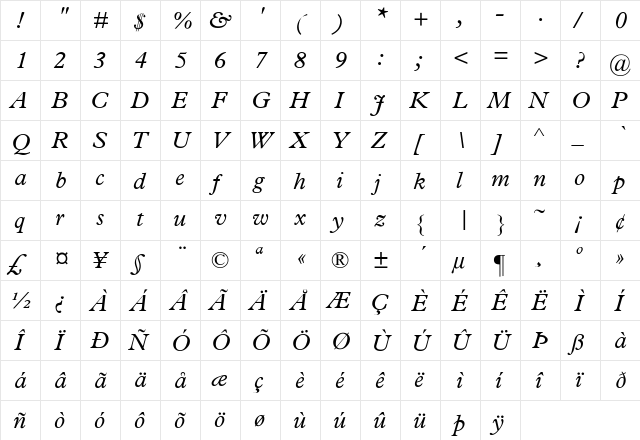
MPlantin-Italic Regular
Design Context for MPlantin-Italic Typeface
MPlantin-Italic takes a measured approach to typography — its balanced proportions and neutral character make it a reliable workhorse for both digital and print work. The dynamic lean of this cut emphasises speed and emphasis in any layout.
Pro Tip: Try MPlantin-Italic for annotation and caption copy alongside an upright companion — the contrast in angle creates a dynamic but ordered typographic system.